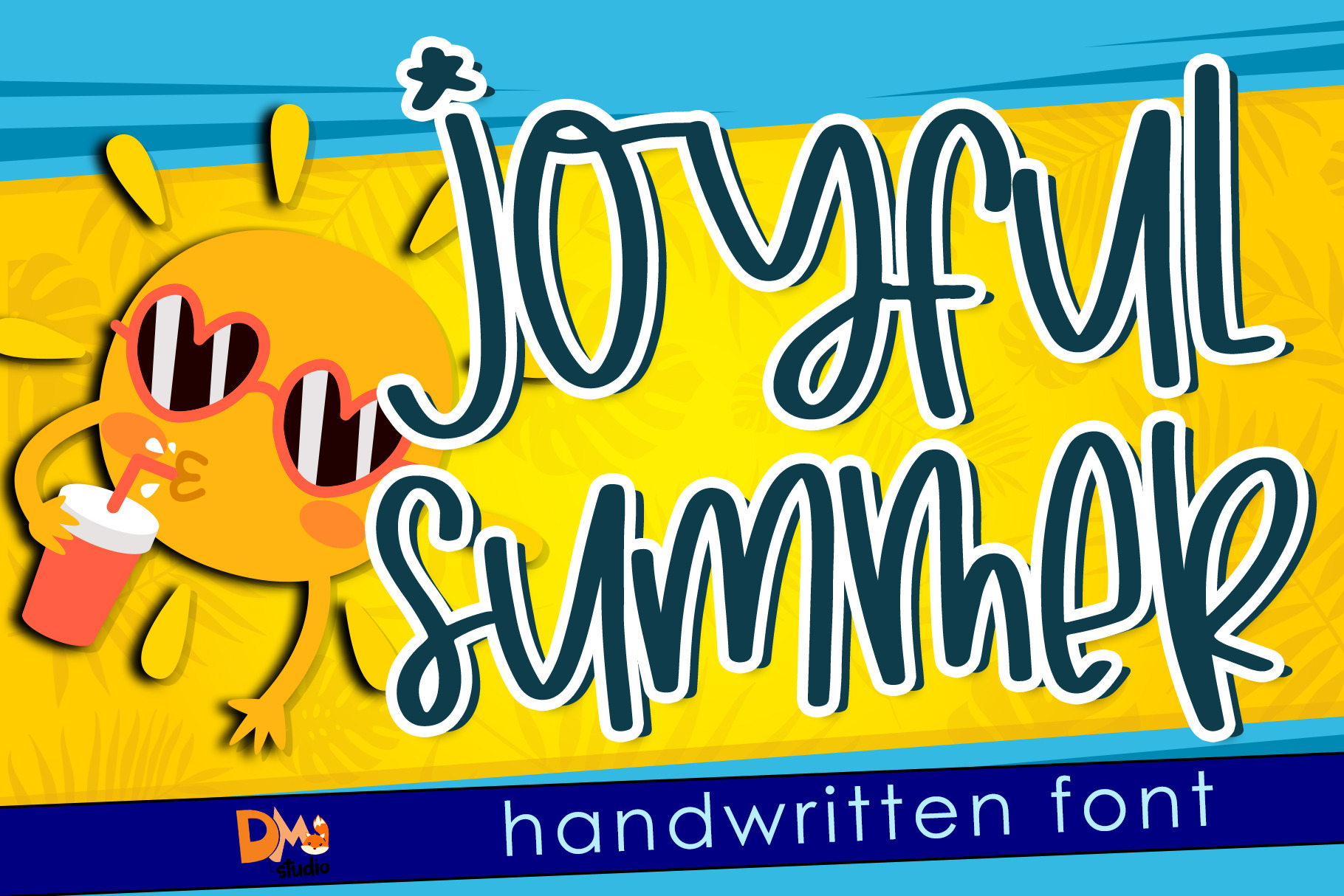
Joyfull Summer - Handwritten Font
Joyful Summer is a quirky, and unique with messy look handwritten font. Make your design more cheerful with this stylish font!
- Mix case characters set
- Numeric